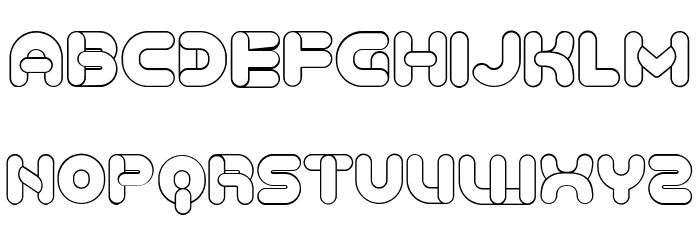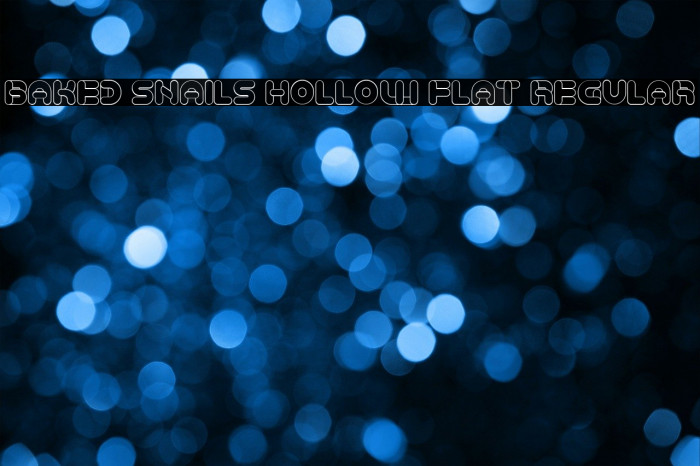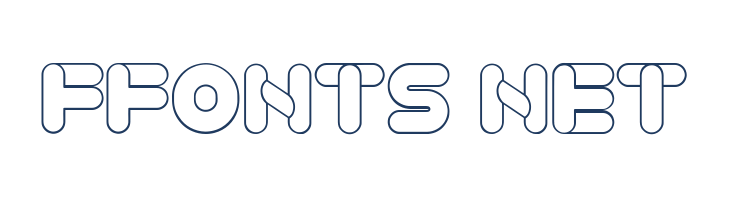
Baked Snails Hollow Flat Regular Font
This font features a unique hollow design with a flat, geometric structure. Each character is outlined, creating a bold yet airy appearance. The rounded edges and consistent line thickness give it a modern, playful feel. The uppercase letters are uniform in height, while the lowercase letters maintain a similar style, ensuring readability. The numbers and special characters follow the same design principles, making them cohesive with the alphabet. This font's distinct style makes it suitable for creative and eye-catching designs.
A modern, hollow, geometric font with rounded edges and consistent line thickness.
- Font: Baked Snails Hollow Flat Regular
- Proposed Projects: Ideal for posters, logos, branding, and any project requiring a bold, modern aesthetic.